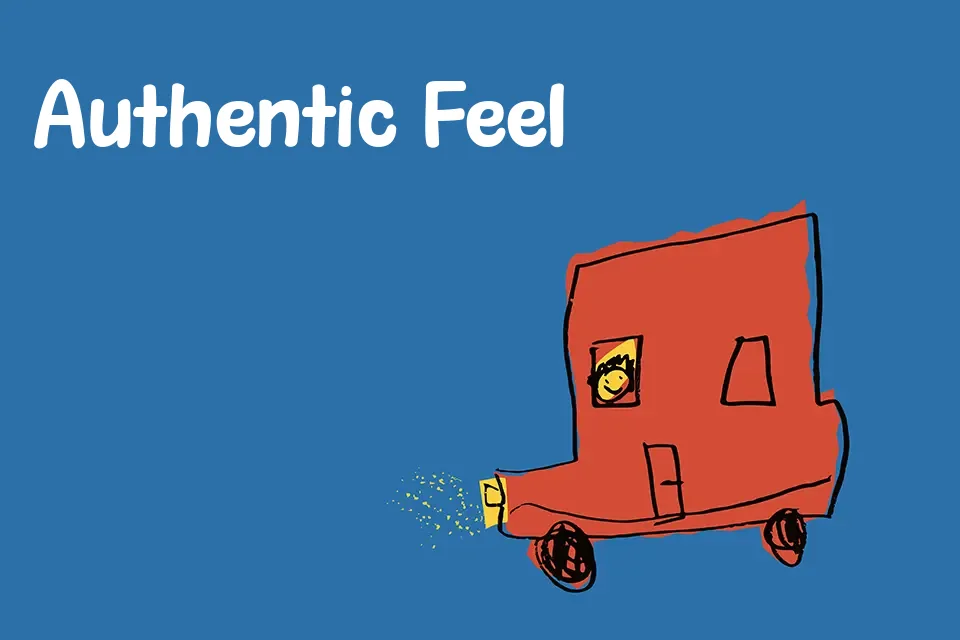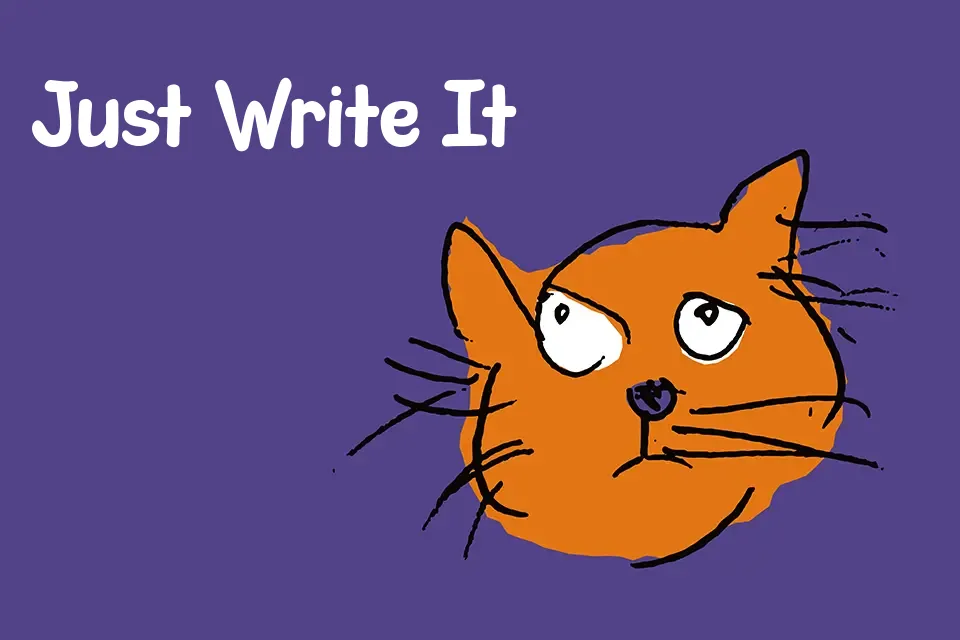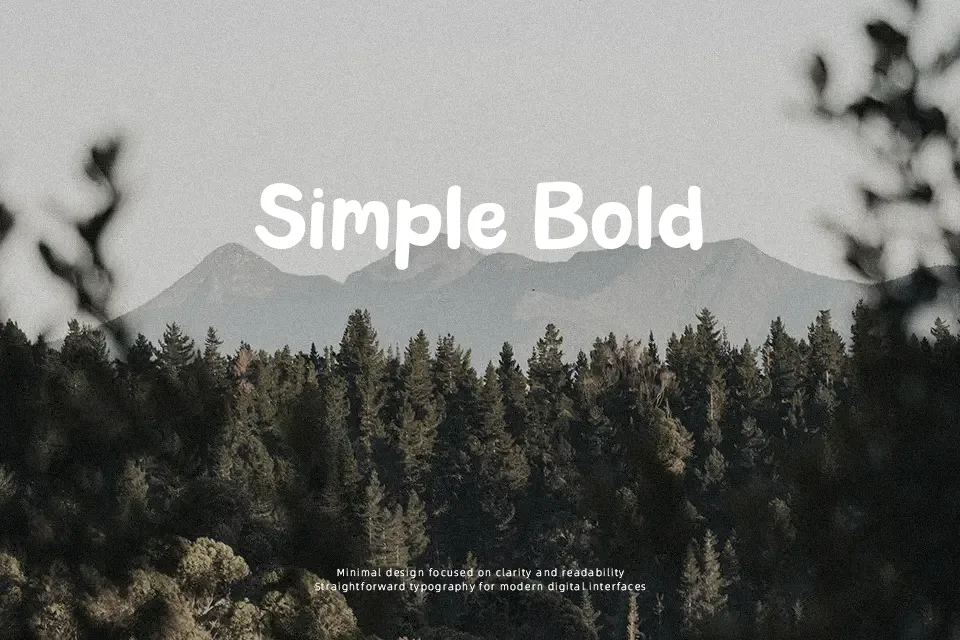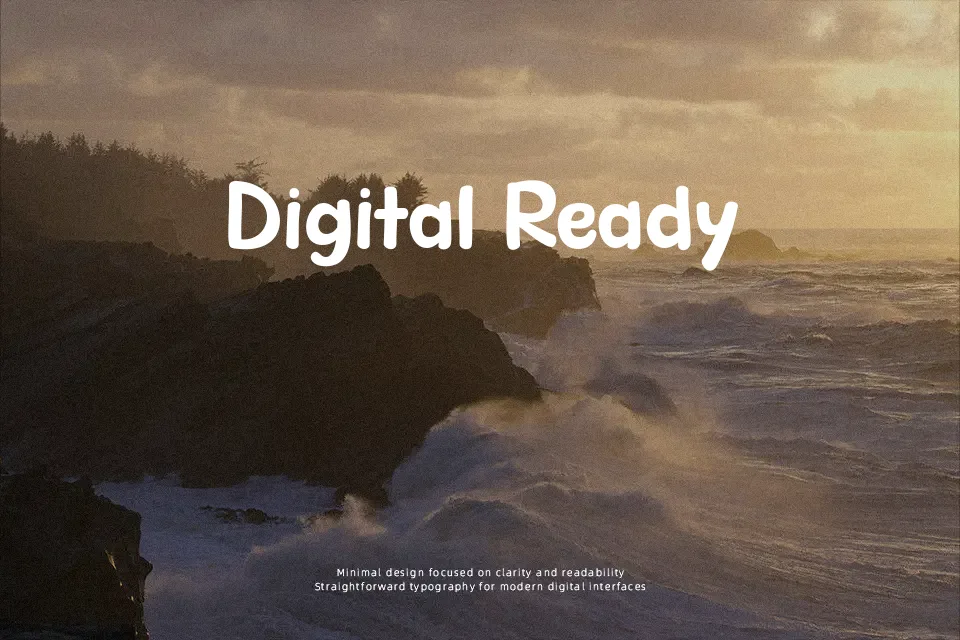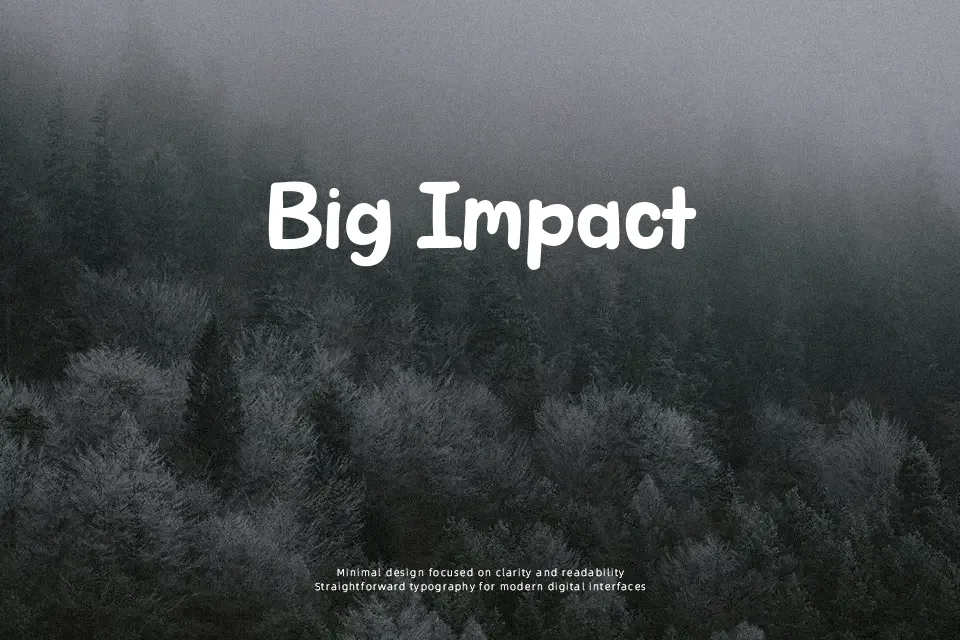
Chonky Bunny Font
Chonky Bunny Font is built with thick, unmodulated strokes and soft, curved terminals that give each character a friendly, hand-drawn appearance. The letterforms display generous internal counters and relatively uniform widths, paired with close tracking that keeps words visually cohesive in larger arrangements. While the design ensures immediate legibility in party invitations, merchandise prints, and craft branding, the substantial stroke weight reduces interior whitespace significantly at smaller scales. Consequently, dense text settings and continuous body paragraphs suffer from diminished clarity. The typeface functions most effectively when isolated as prominent display lettering where its playful personality and bold presence can anchor the composition.
Best For: easter celebration posters,children book covers,craft merchandise packaging,party invitation headlines
Not Ideal For: continuous body paragraphs,technical manuals,mobile user interface text,legal documents
Perfect for easter, invitation, and kids, with a bold and display style.